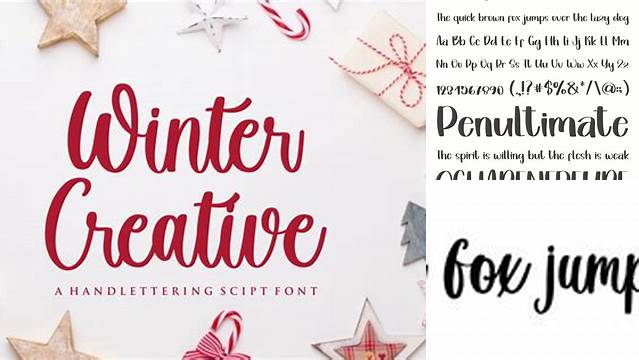
Download Winter Fonts: Creative & Free Options
Hey guys! Are you on the hunt for that perfect font to give your winter-themed projects a creative and regular touch? Look no further! In this article, we'll dive deep into the world of fonts, focusing on how you can snag a winter creative regular font for free, and how to use it to its full potential. Let's get started!
Understanding the Importance of Fonts
Fonts are more than just a way to display text; they're a crucial element of design that communicates mood, style, and personality. The right font can elevate your project from looking amateur to professional and polished. Imagine creating a holiday greeting card with a generic, uninspired font – it just wouldn't have the same impact as one crafted with a beautiful, thematic typeface. This is especially true when aiming for a winter creative regular font that captures the essence of the season.
The Psychology of Typography
Believe it or not, fonts can evoke specific emotions and associations. A winter creative regular font might aim to feel cozy, festive, or even slightly whimsical. The curves, thickness, and overall style of the letters play a significant role in how the message is perceived. For instance, a script font might feel elegant and personal, while a sans-serif font could project a modern and clean vibe. Understanding this psychology helps in choosing the font that best aligns with your project's goals. When you choose a winter creative regular font, think about what feelings or concepts you want to convey. Do you want the font to feel like a snowy day, a warm fireplace, or a festive celebration?
Fonts and Branding
For businesses, fonts are an integral part of branding. Consistency in typography across all marketing materials helps build brand recognition and reinforces the brand's identity. Choosing a winter creative regular font for a seasonal campaign can add a festive touch without straying too far from the established brand aesthetic. Think about major brands that use specific fonts consistently; you instantly recognize their ads and logos because the typography is familiar. When incorporating a winter creative regular font, consider how well it complements your existing brand fonts and whether it maintains a cohesive look.
Finding Free Winter Creative Regular Fonts
Before you download and use any font, it's essential to understand the licensing agreement. Free fonts often come with restrictions on how they can be used. Some may be free for personal use only, while others allow commercial use. Pay close attention to the terms to avoid copyright infringement. Here's a quick rundown of common font licenses:
- Public Domain: These fonts are free to use for any purpose, without restriction.
- Open Font License (OFL): This license allows you to use, modify, and distribute the font, even for commercial purposes.
- Free for Personal Use: These fonts can only be used for non-commercial projects, such as personal greeting cards or crafts.
- Commercial License: These fonts can be used for commercial projects, such as logos, websites, and marketing materials. However, you may need to purchase a license to use them.
Tips for Searching for Winter Fonts
When searching for a winter creative regular font, use specific keywords to narrow down your results. Try terms like:
- "Winter font"
- "Holiday font"
- "Snowflake font"
- "Christmas font"
- "Festive font"
- "Icy font"
You can also combine these keywords with terms like "free," "creative," and "regular" to refine your search further. Don't be afraid to experiment with different combinations to find the perfect winter creative regular font for your project.
Using Your Winter Creative Regular Font
Once you've found and downloaded your winter creative regular font, it's time to put it to use! Here are some tips for incorporating it into your projects:
- Invitations: Design elegant invitations for holiday parties or events.
- Gift Tags: Create custom gift tags to add a personal touch to your presents.
Finding and using a winter creative regular font can significantly enhance your winter-themed projects. By understanding the importance of fonts, knowing where to find free options, and following design best practices, you can create stunning visuals that capture the spirit of the season. So go ahead, explore the world of typography and let your creativity shine! Happy designing, and happy holidays, everyone!